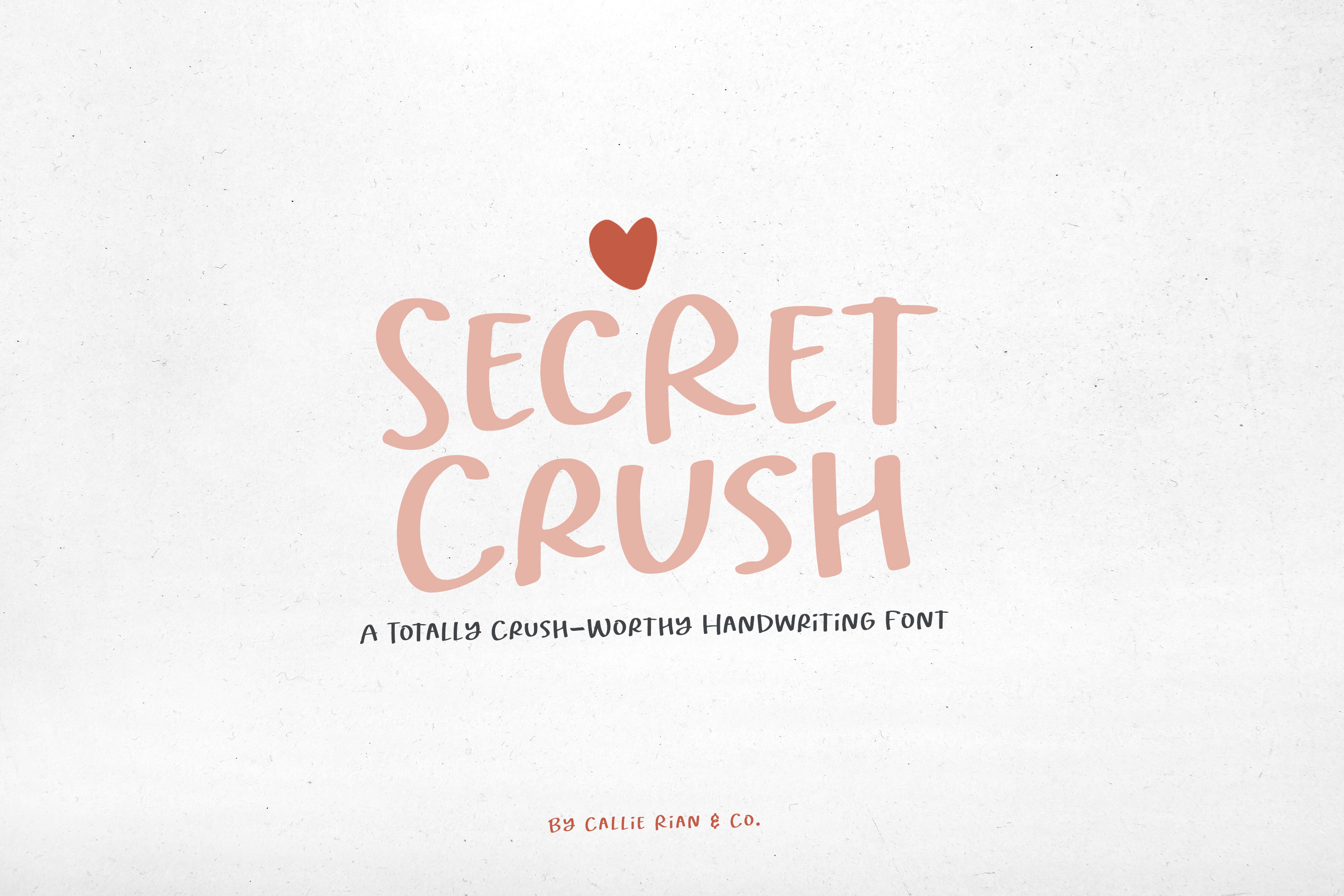
This might just be your next font crush! 💖 Introducing Secret Crush, a totally crush-worthy, handwriting typeface with boatloads of charm! Use for packaging, branding, greeting cards, stickers, journals, quotes and so much more! It’s cute, and clean, and will cut like butter on a Cricut or Silhouette machine!
- Western European Language Support with select catchwords and ligatures.